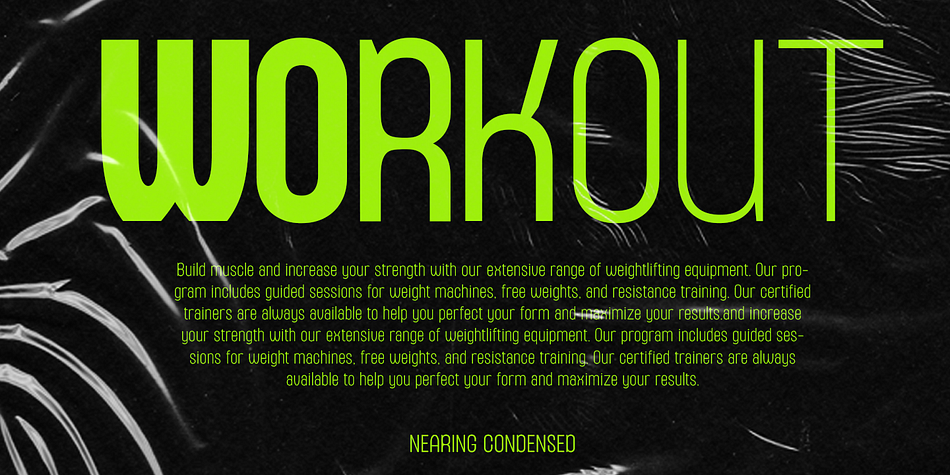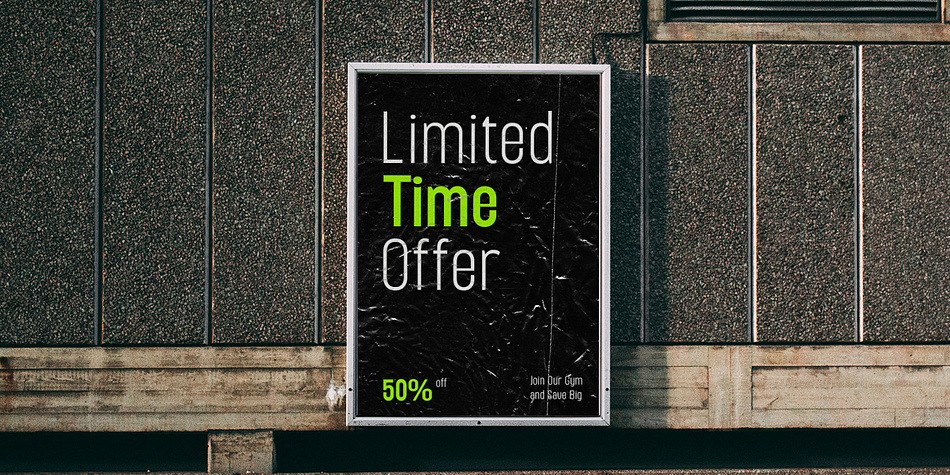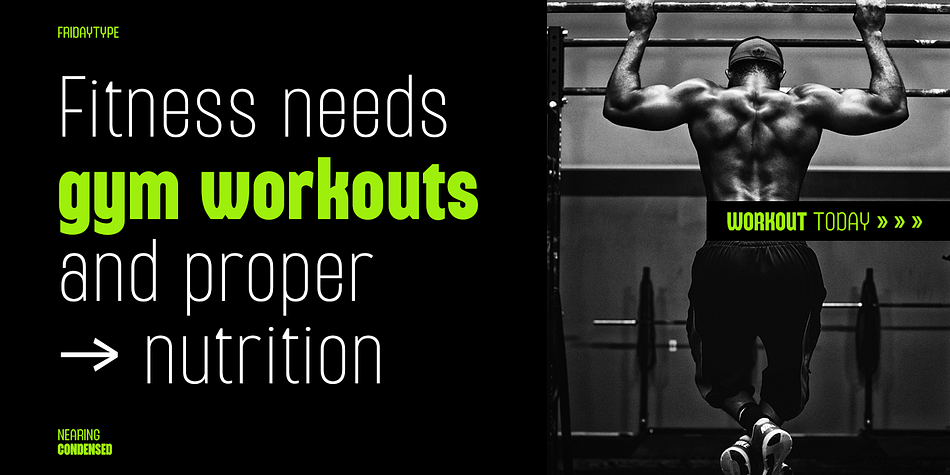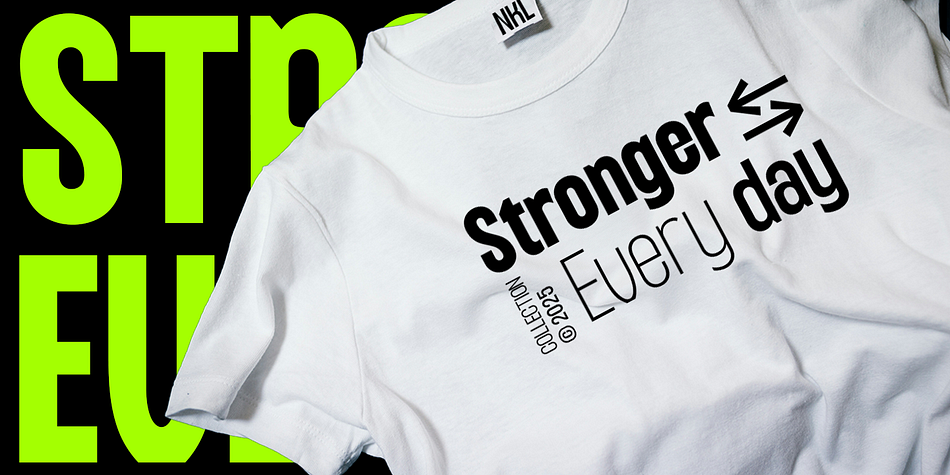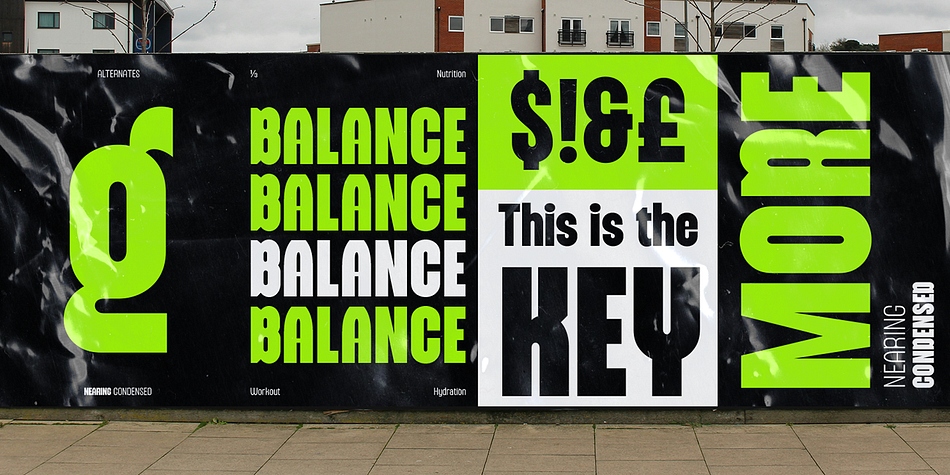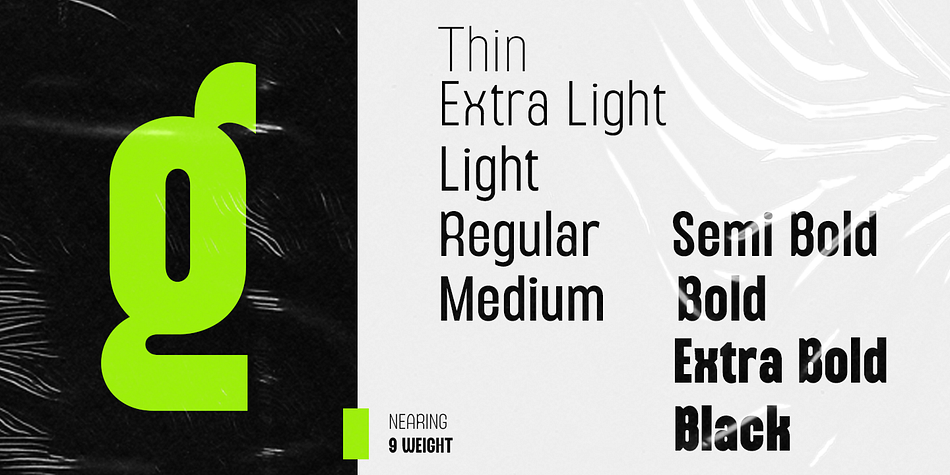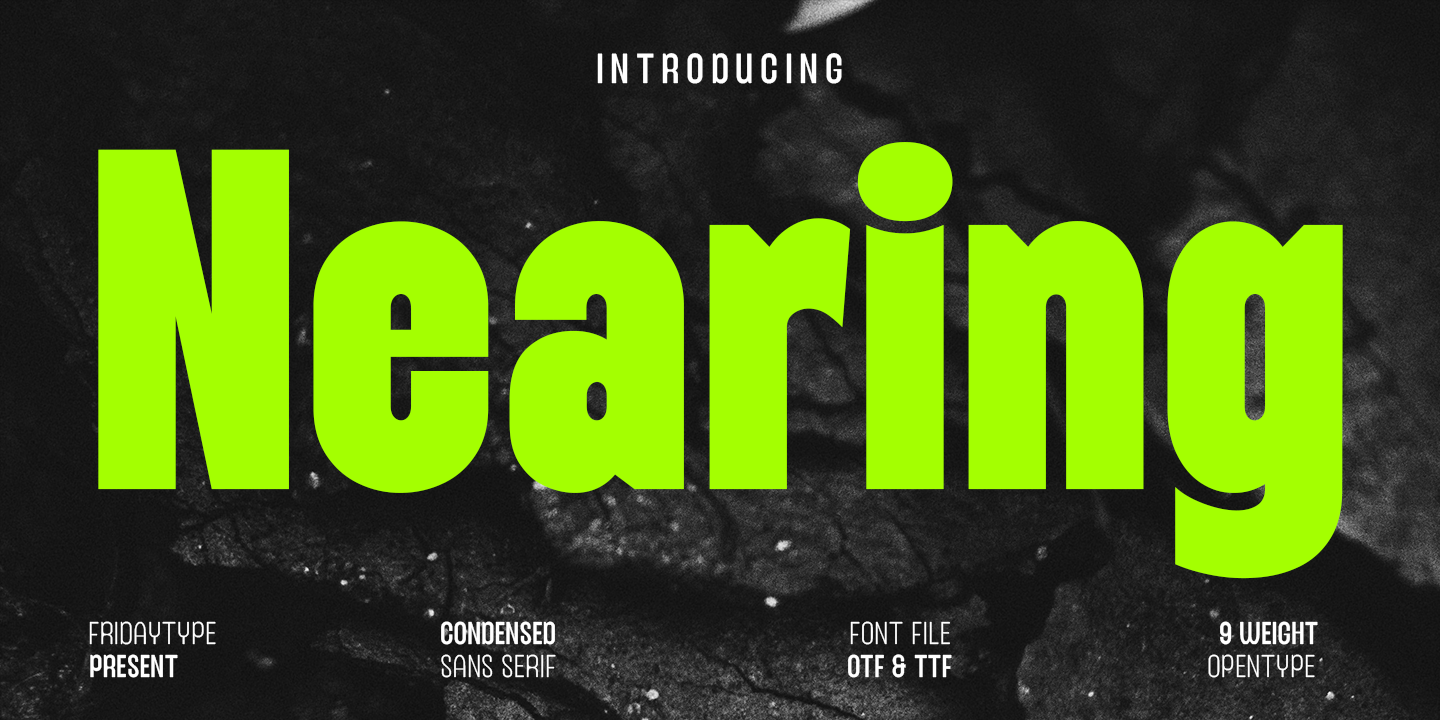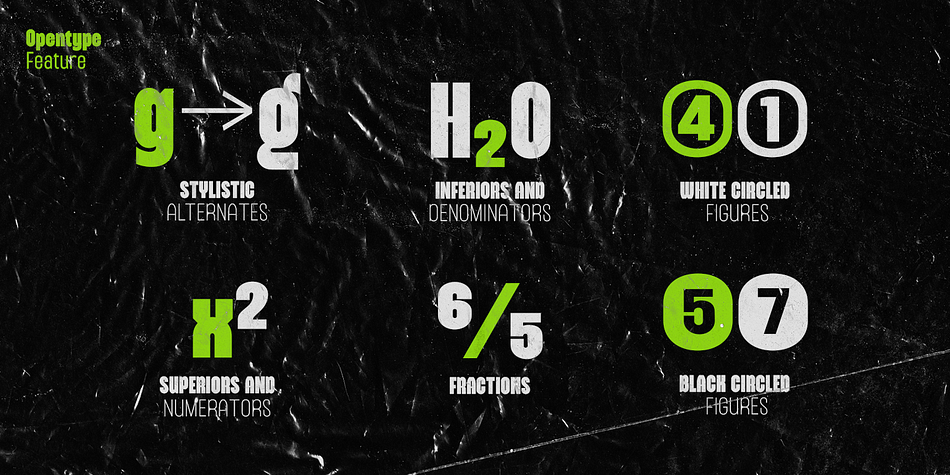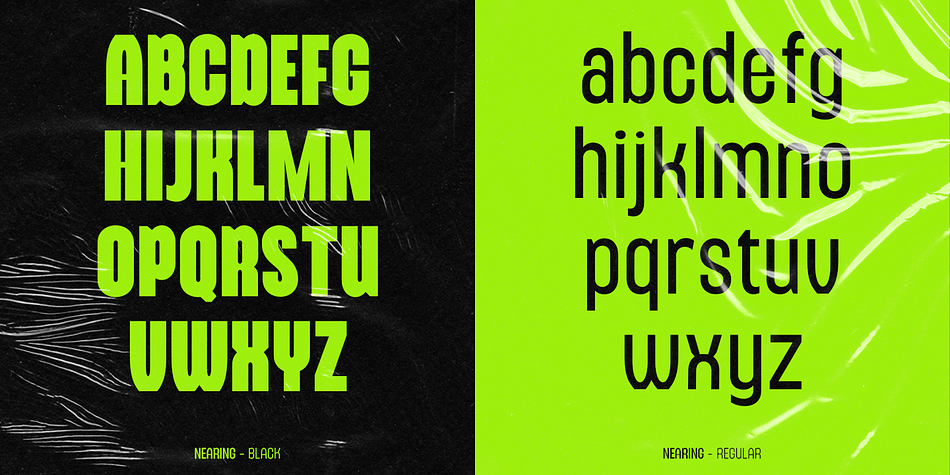
Nearing
Nearing is a sans serif font family. This typeface has ten styles and was published by Fridaytype.
Nearing Condensed Sans brings a bold and dynamic aesthetic to your portable workout equipment packaging. Its sleek design not only catches the eye but also communicates high performance and quality. Nearing comes with 9 weights. All these features make the font a great choice for graphic designers and art directors for logos, wordmarks, short text, etc.